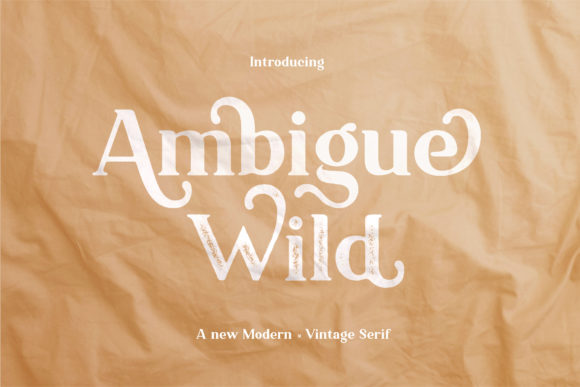
I still remember the frustration of working on a project, hours spent perfecting every detail, only to be held back by one thing: the font. It was a client request for a logo design, and I was stuck on finding the right typeface. The project required something modern, yet elegant; clean, yet with a touch of personality. I scoured the internet, tried countless fonts, but nothing seemed to fit. That was until I stumbled upon Ambigue Wild.
First Impressions: A Love Affair with Ambigue Wild
Ambigue Wild is a clean modern serif font that quickly won me over with its smooth rounded edges and unique blend of rough and inked styles. It’s perfect for creating outstanding projects – be it logo, branding, product packaging, magazine covers, and much more! ✨
- ✅ Smooth rounded edges that add a touch of elegance to any design
- ✨ Unique blend of rough and inked styles for a distinctive look
- ✅ Highly versatile and suitable for a wide range of projects
- 💡 Excellent for creating logos, branding, and product packaging
While Ambigue Wild is an excellent font, there are a few things to keep in mind: 🤔
- ⚠️ Some characters may appear slightly condensed, which can affect readability at smaller font sizes
- ⚠️ Limited availability of extended language support
- Experiment with OpenType features, such as stylistic alternates, to add visual interest to your design
The Designer Behind Ambigue Wild: A Backstory
Ambigue Wild was designed by a talented type designer who aimed to create a font that blends modernity with a touch of roughness. The designer’s inspiration came from traditional printing techniques and a desire to create a font that feels both elegant and approachable. The result is a font that is both versatile and distinctive.
Q: What type of projects is Ambigue Wild best suited for?
A: Ambigue Wild is perfect for creating logos, branding, product packaging, magazine covers, and much more!
Q: Does Ambigue Wild support OpenType features?
A: Yes, Ambigue Wild supports OpenType features, including stylistic alternates and glyphs.